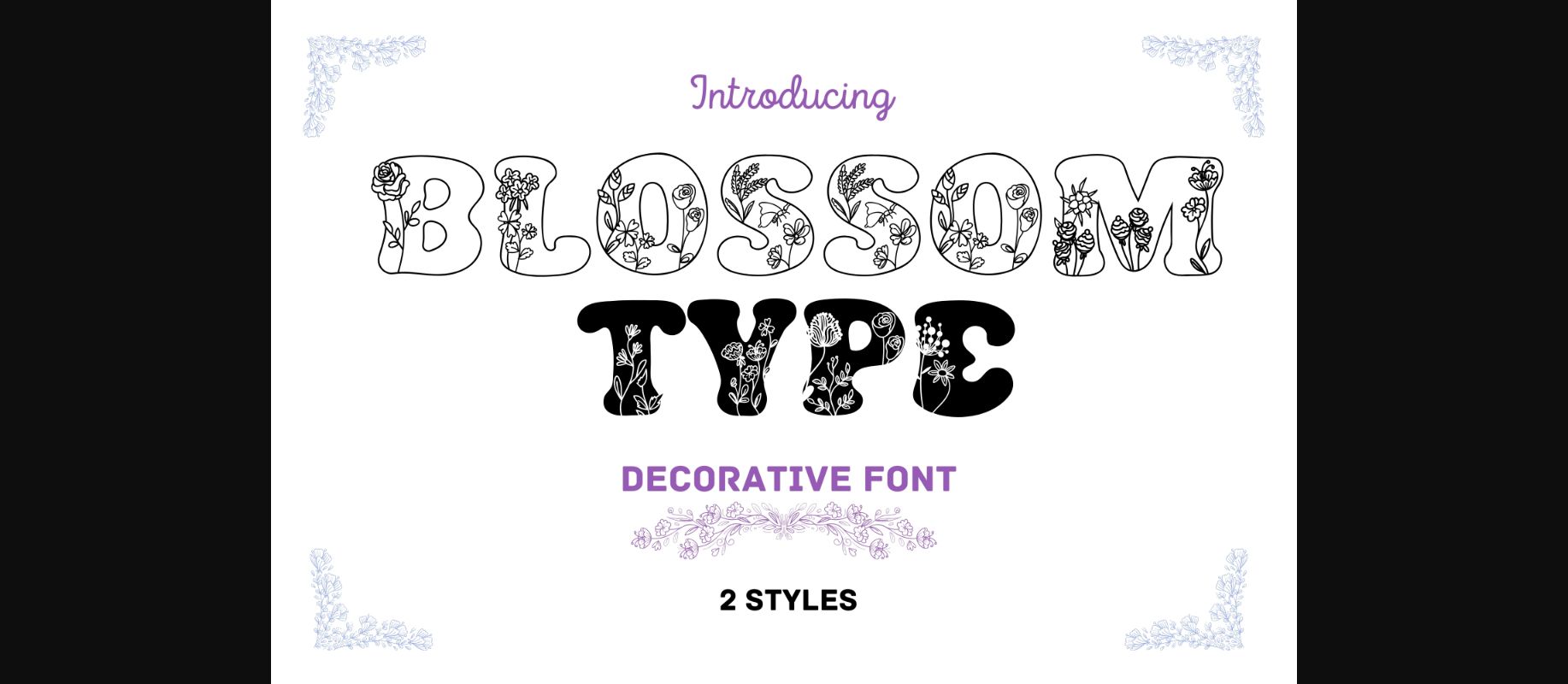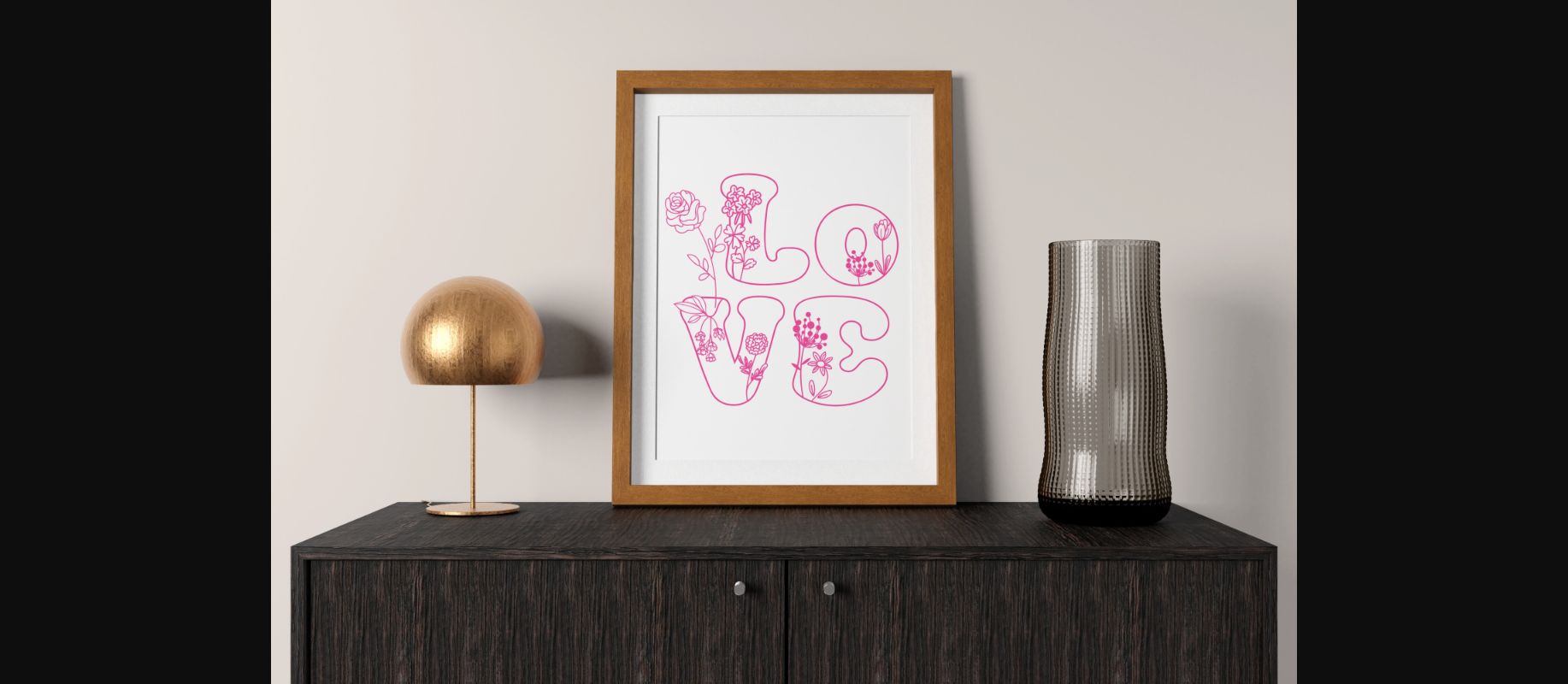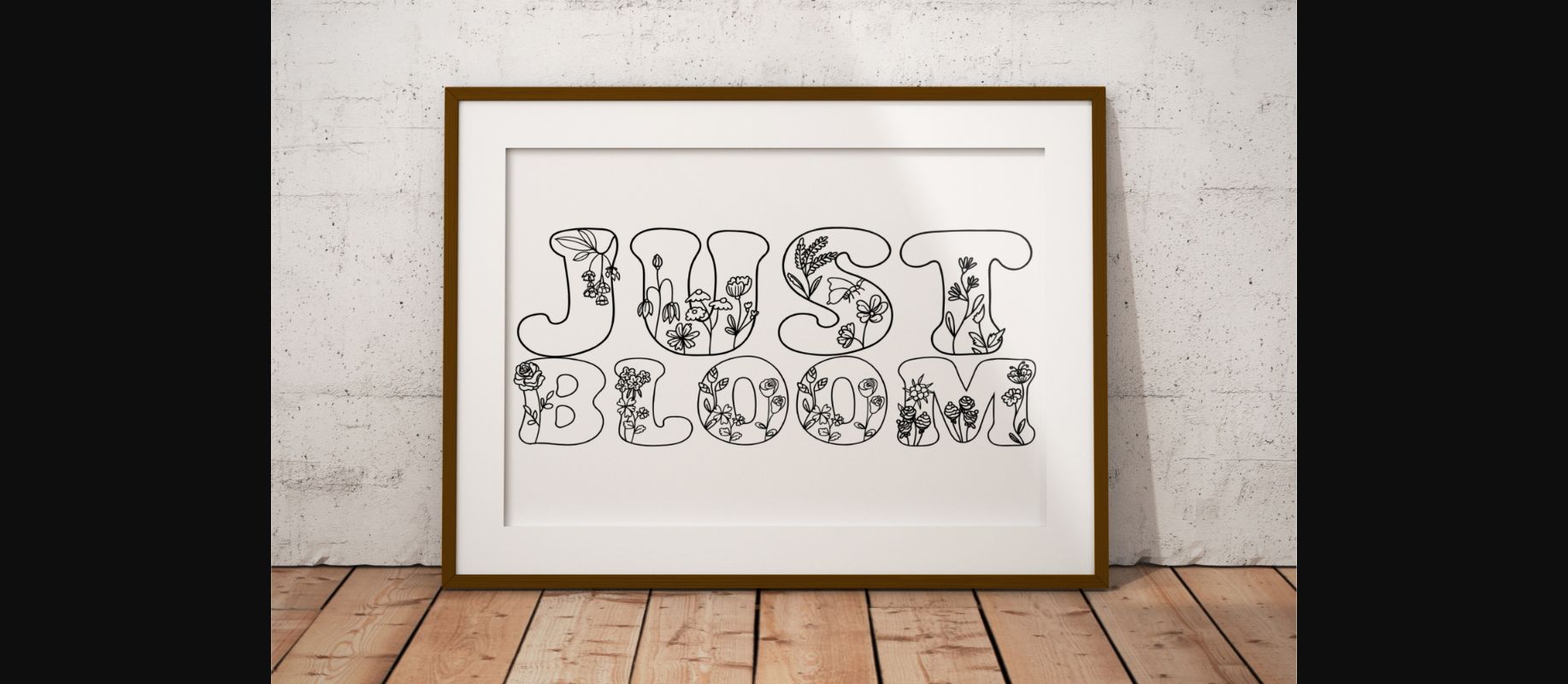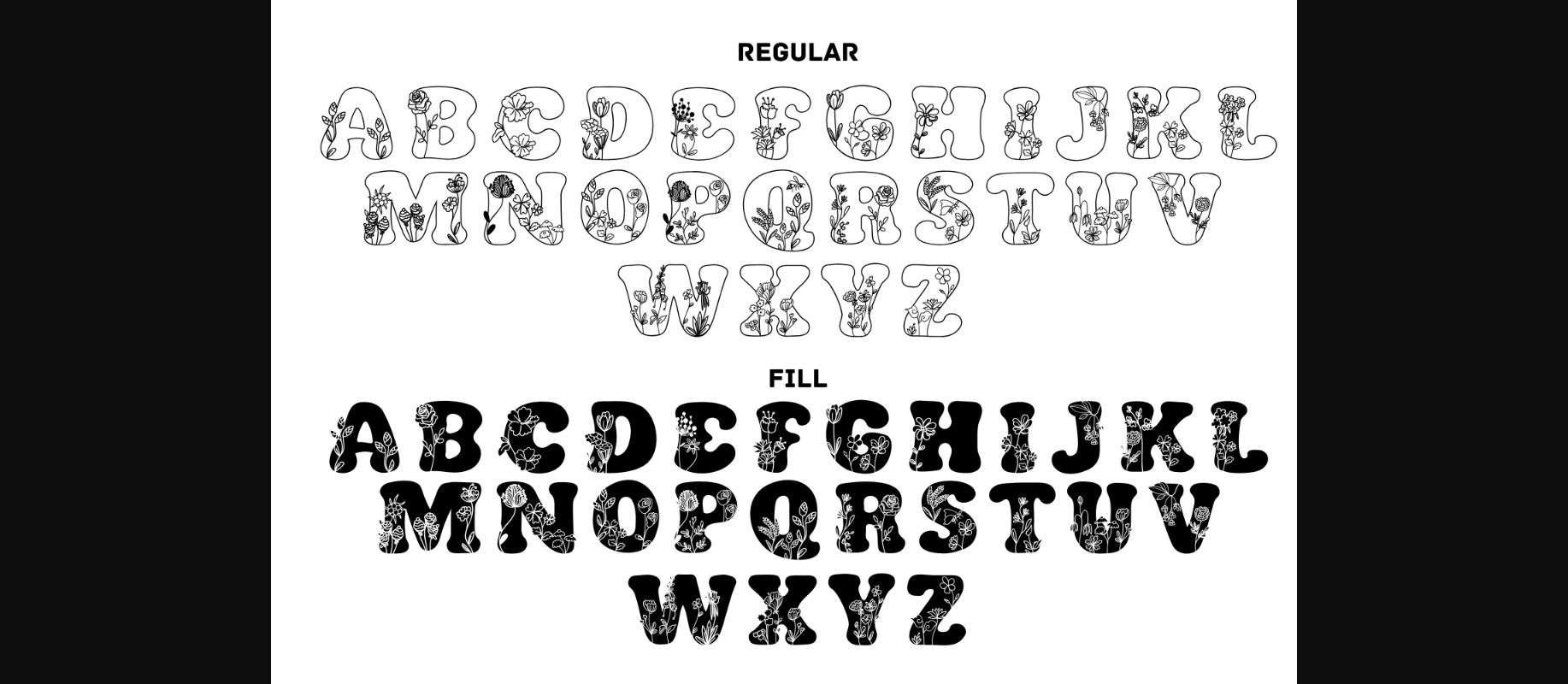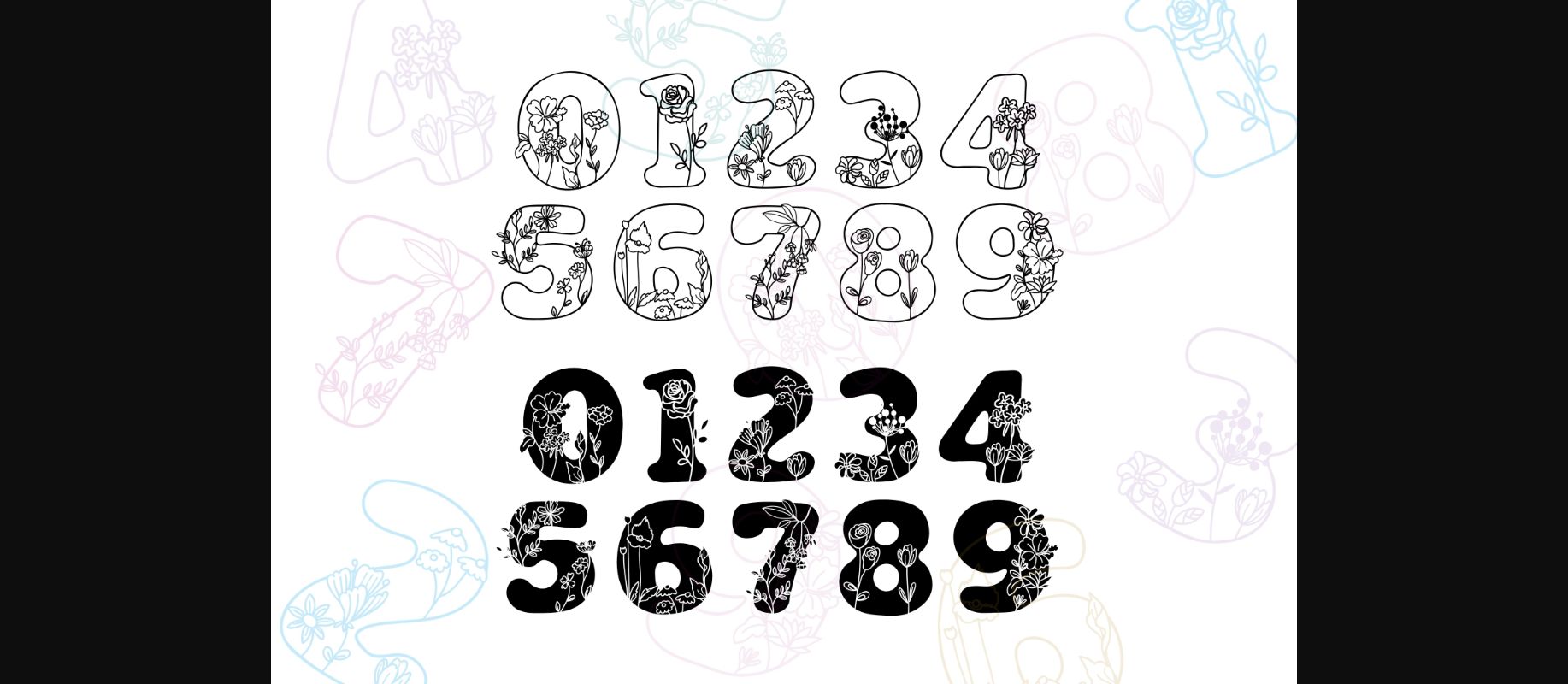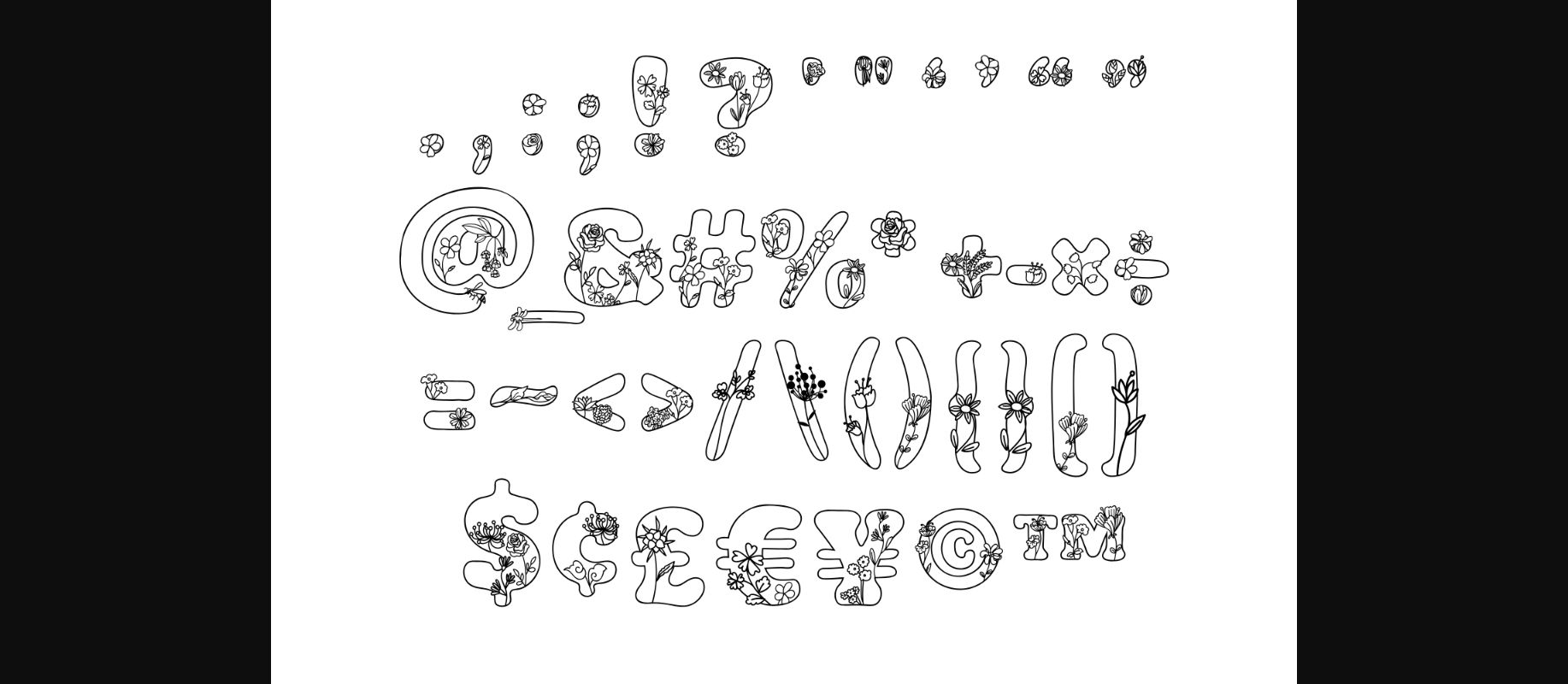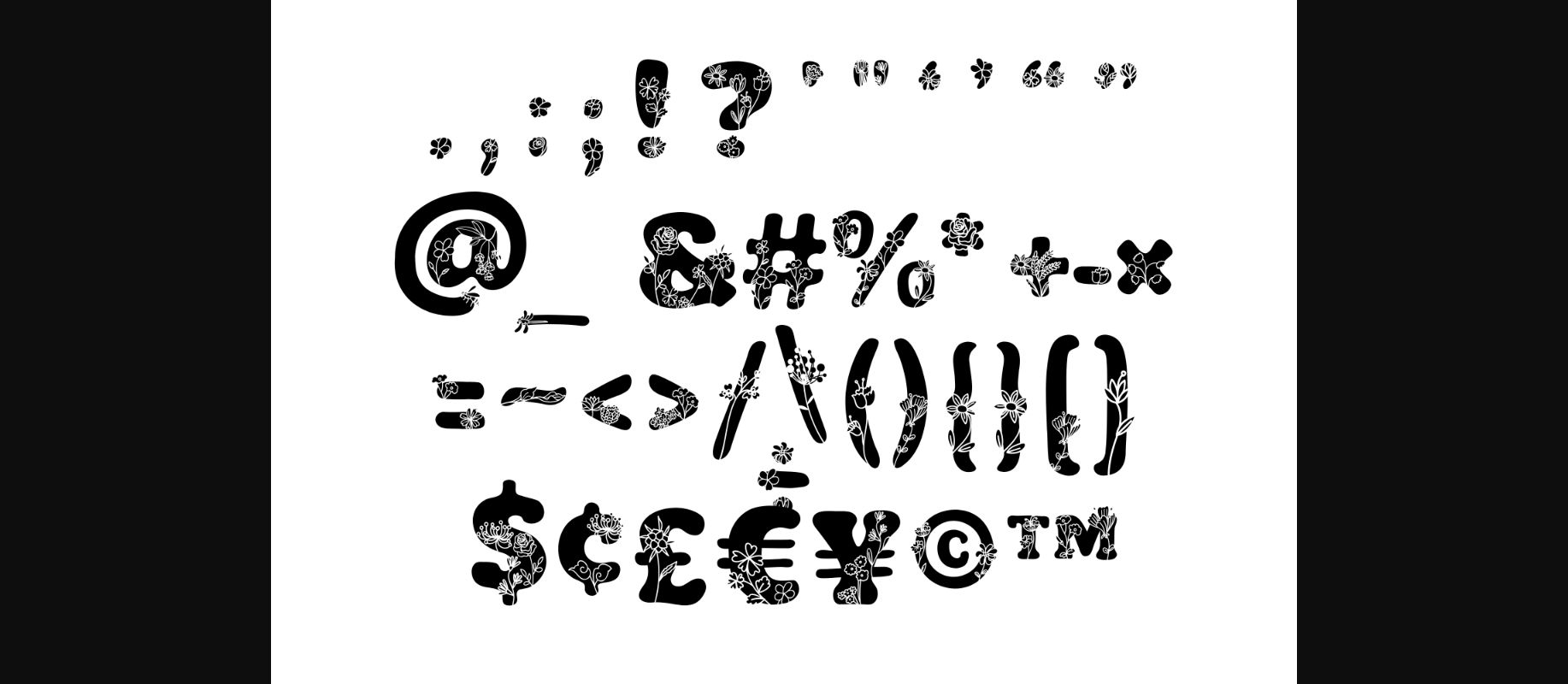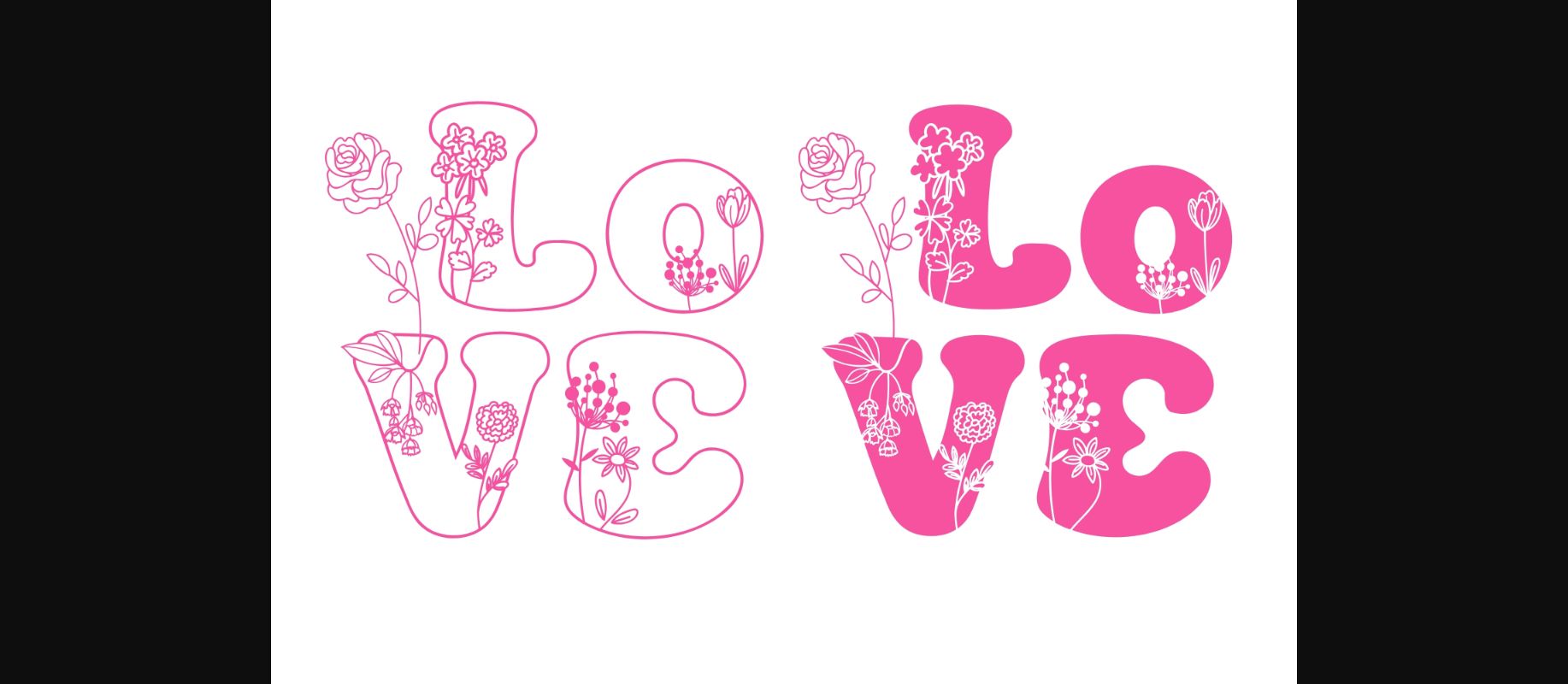
Blossomtype Font
About Blossomtype Font
Blossomtype is a delightfully whimsical decorative font that seamlessly blends typography with the beauty of nature. Meticulously crafted, each letter is adorned with intricate floral motifs and botanical elements, breathing life into every word you create.
This versatile font comes with two distinct styles – Regular and Fill – allowing you to explore different design possibilities and find the perfect fit for your projects. The Regular style features open letterforms with floral accents elegantly intertwined, while the Fill style offers a more bold and striking aesthetic with solid letters filled with lush floral patterns.
Whether you’re creating stunning invitations, crafting captivating logos, or adorning marketing materials, Blossomtype adds a touch of organic charm and sophistication to your designs. From delicate blossoms to lush foliage, each letter is a work of art, meticulously detailed and ready to elevate your projects to new heights. With its versatility and dual styles, Blossomtype is the perfect choice for a wide range of applications, including branding, stationery, apparel design, and much more.
Embrace the beauty of nature and let this exquisite font infuse your designs with a captivating blend of typography and floral artistry. ??